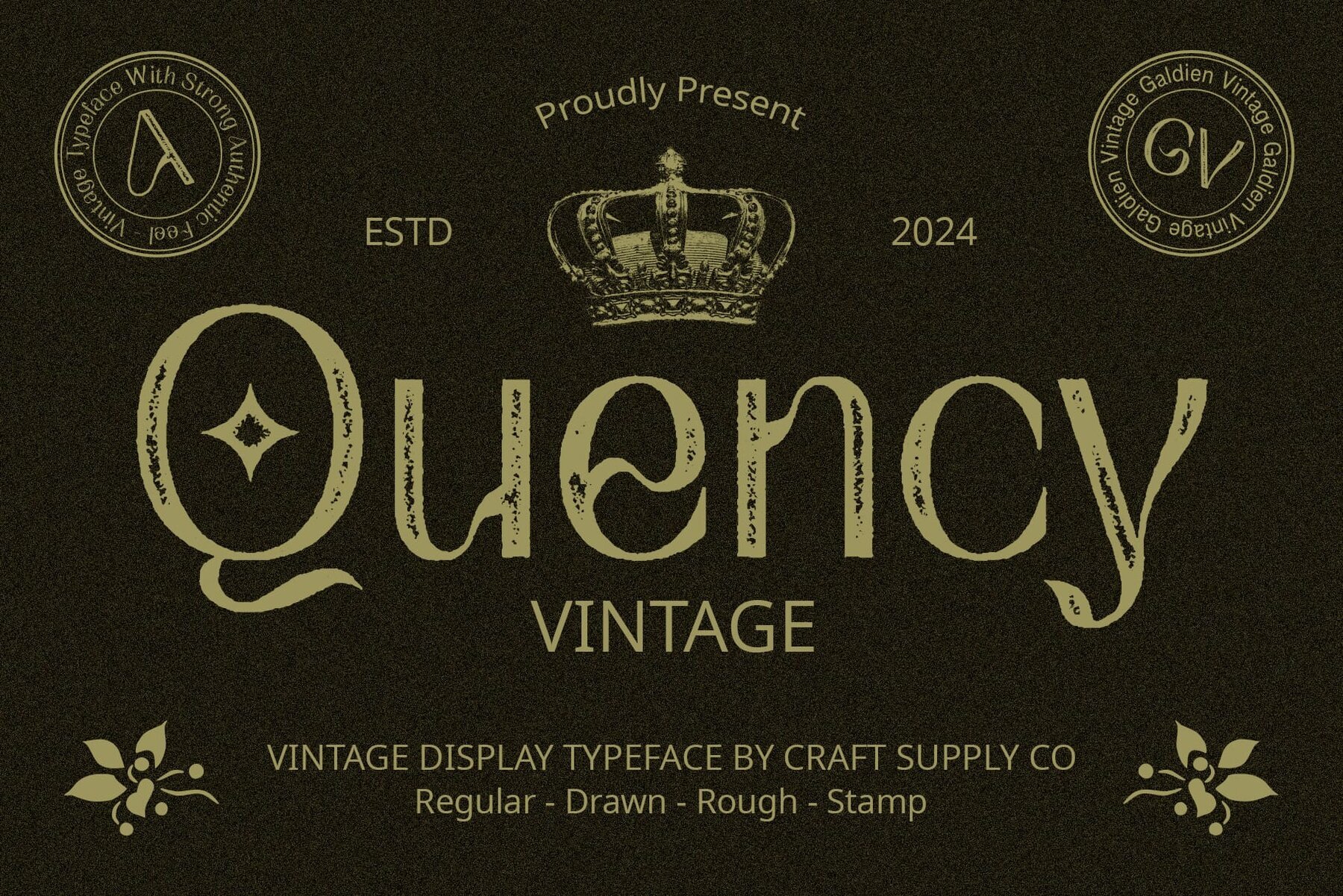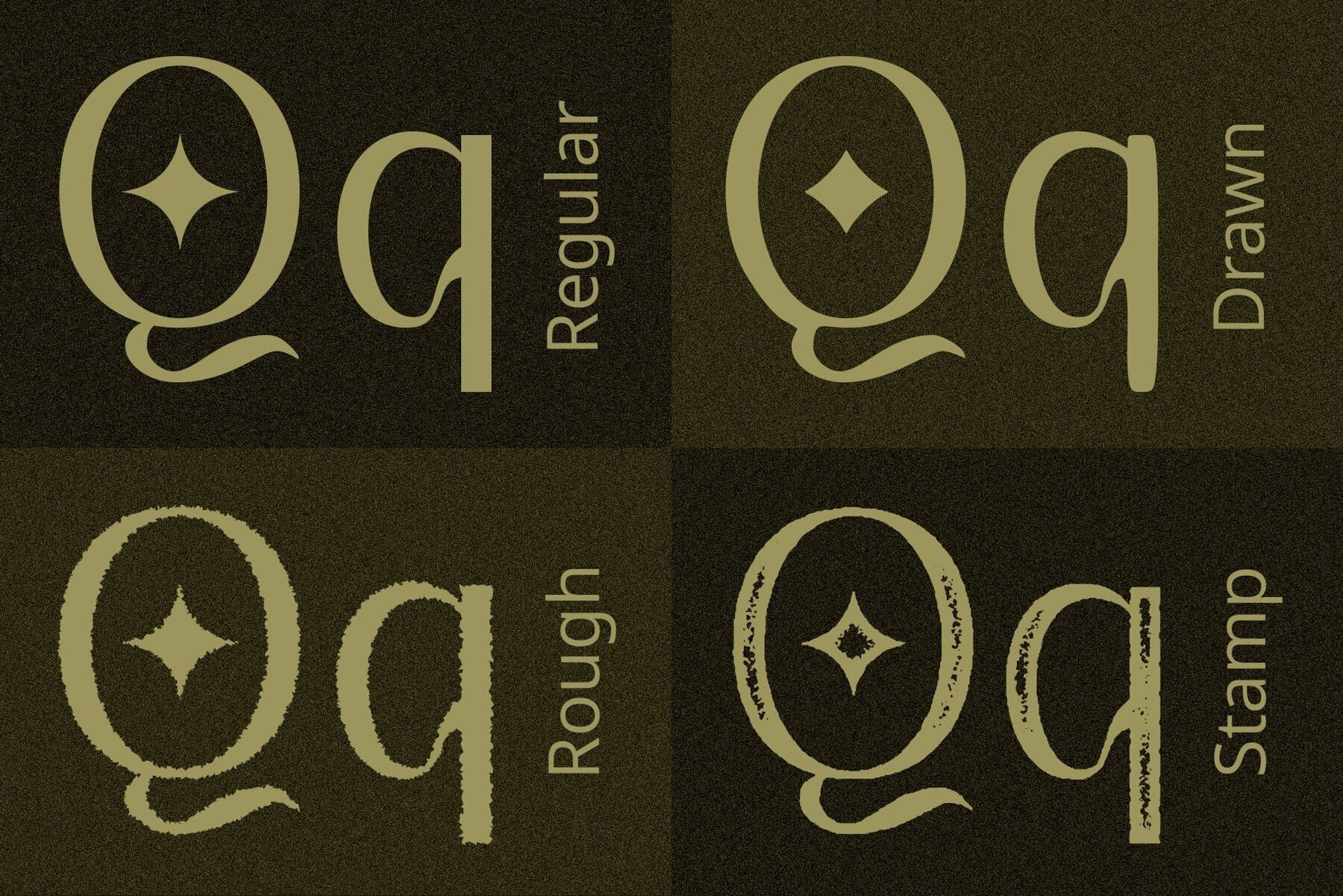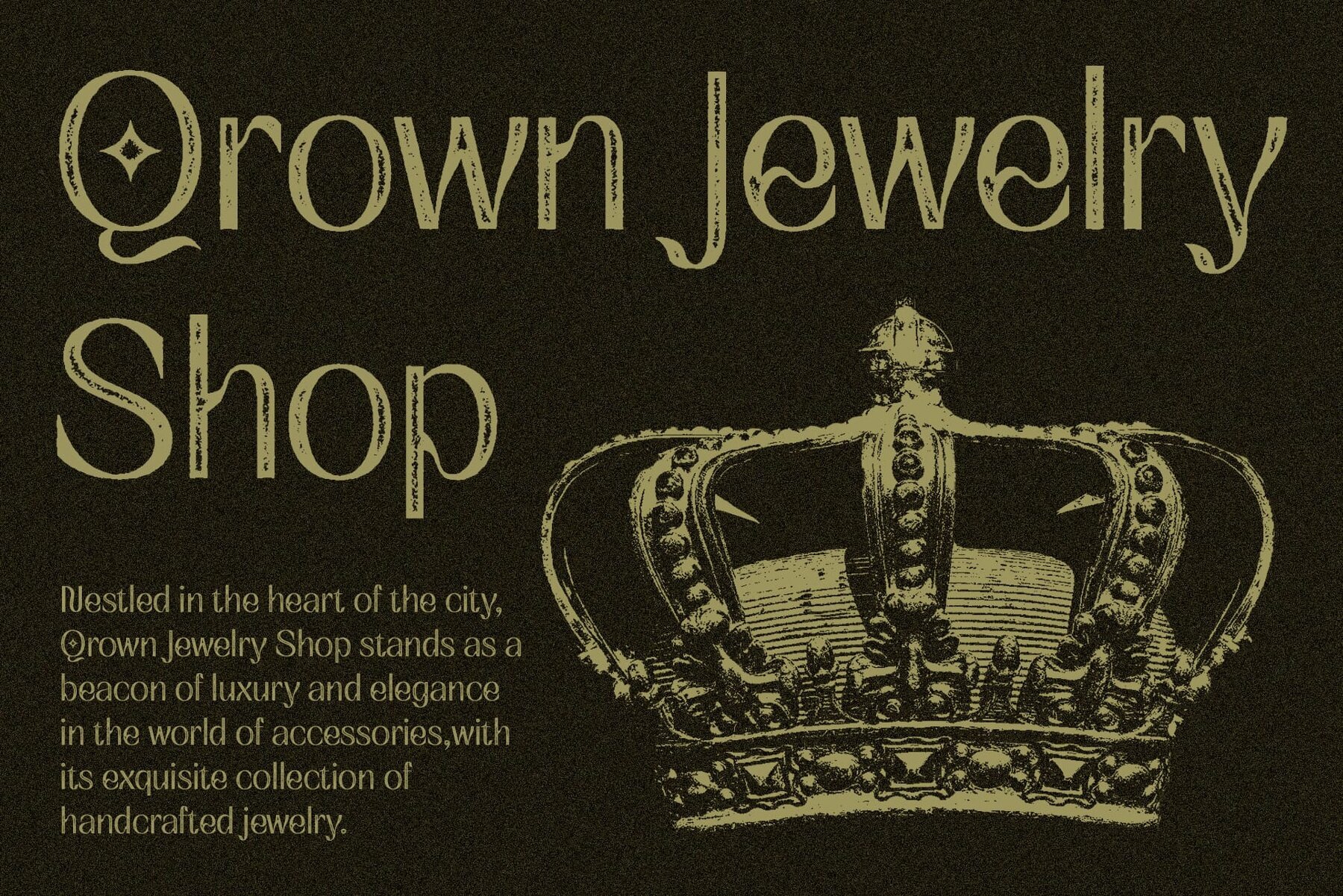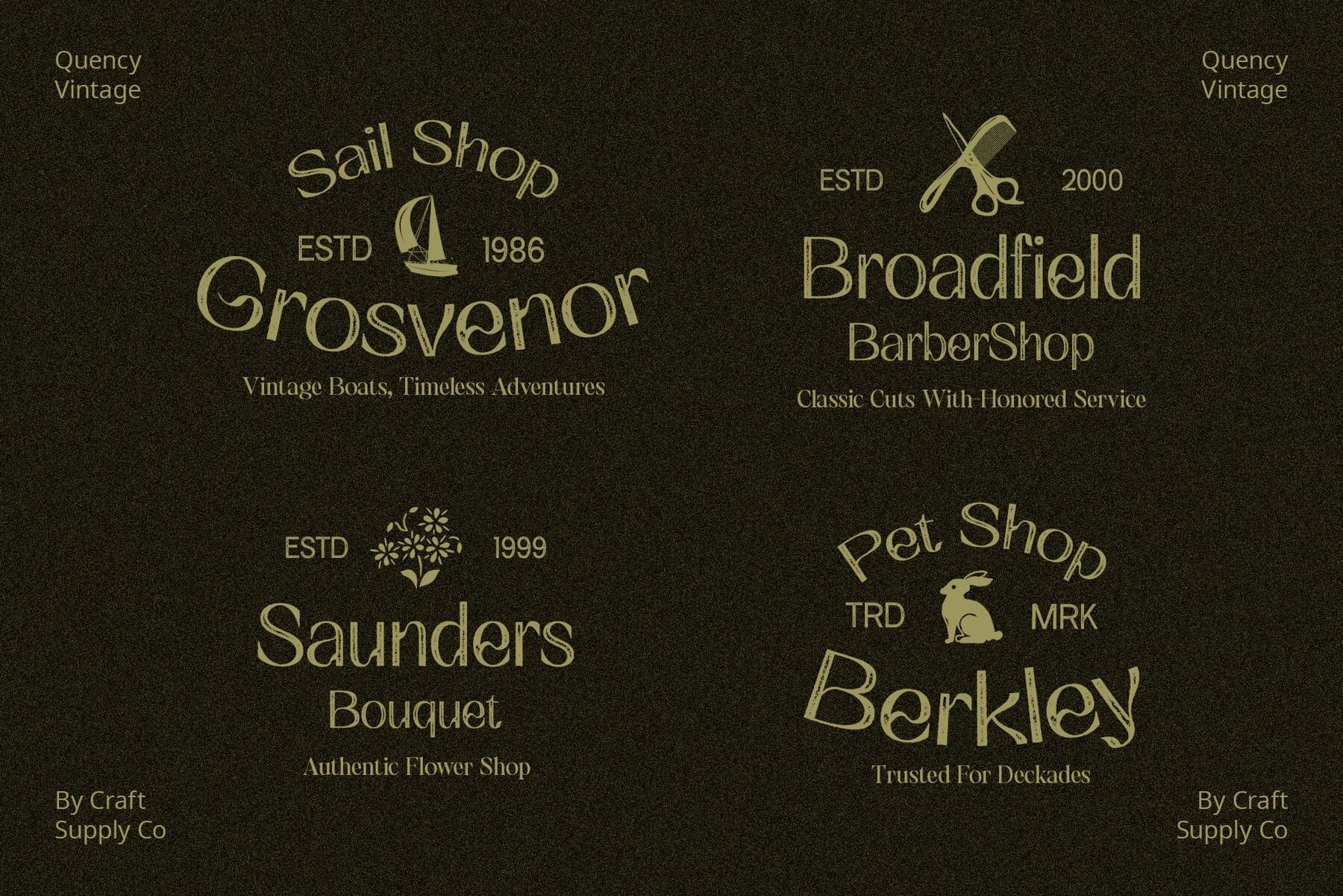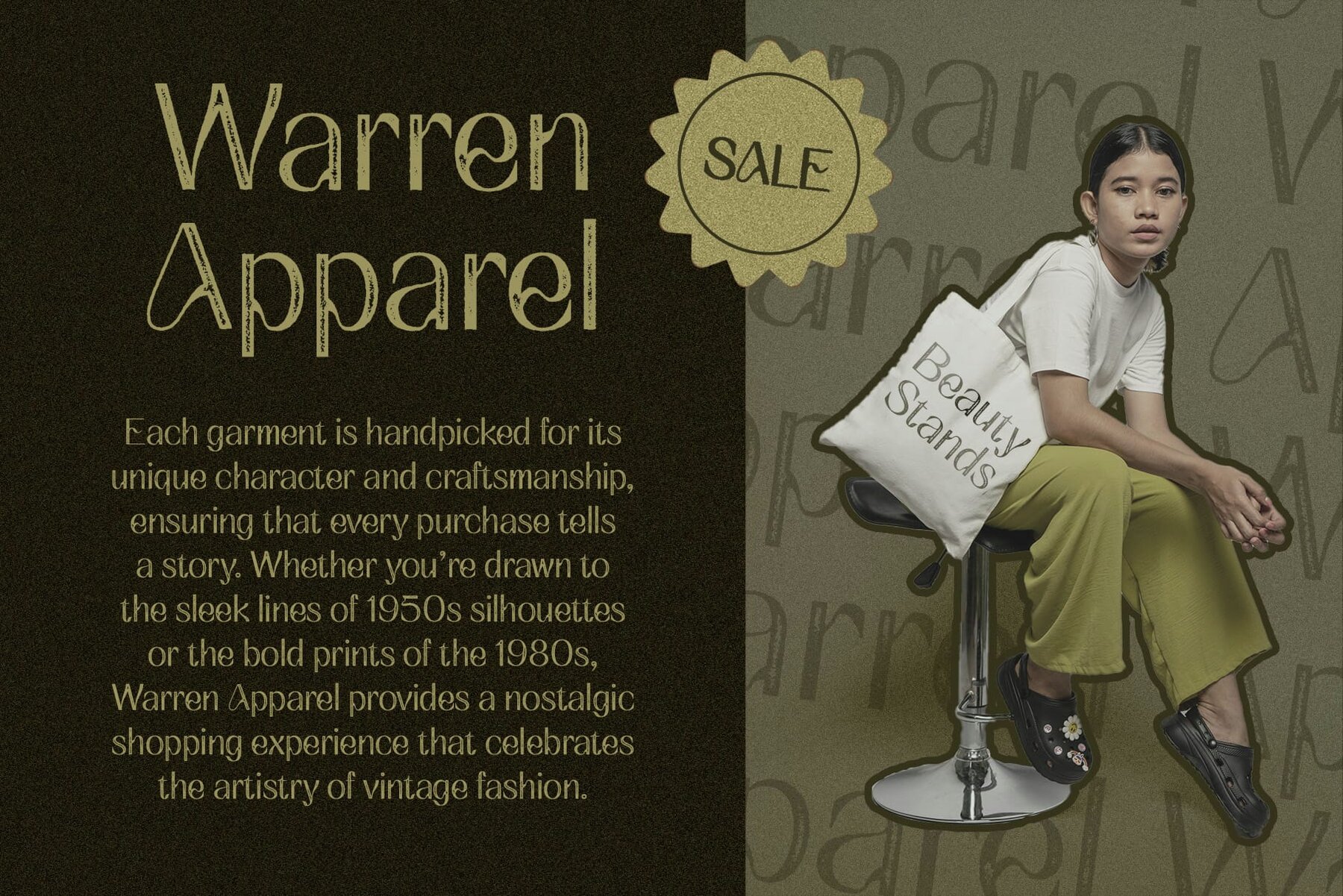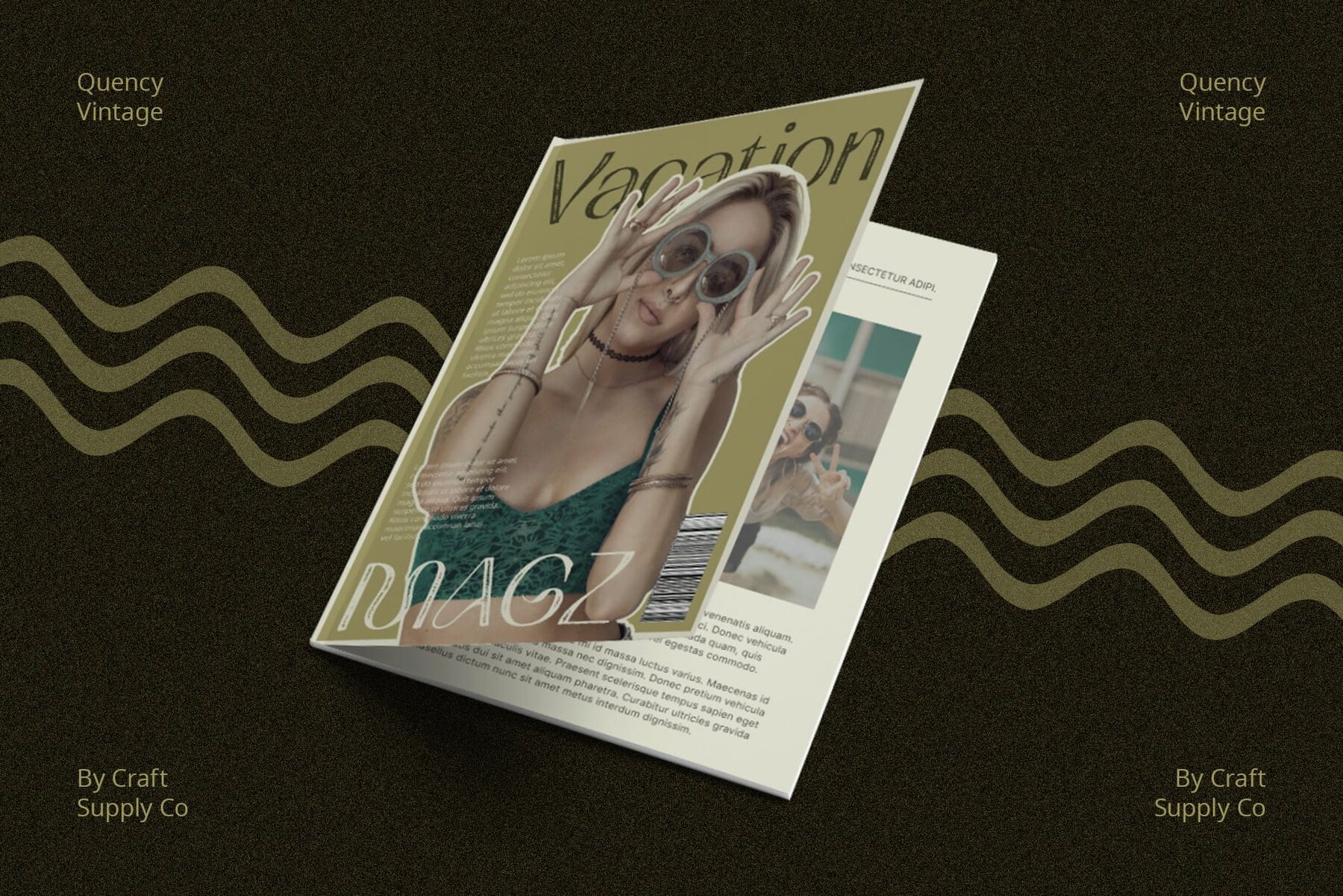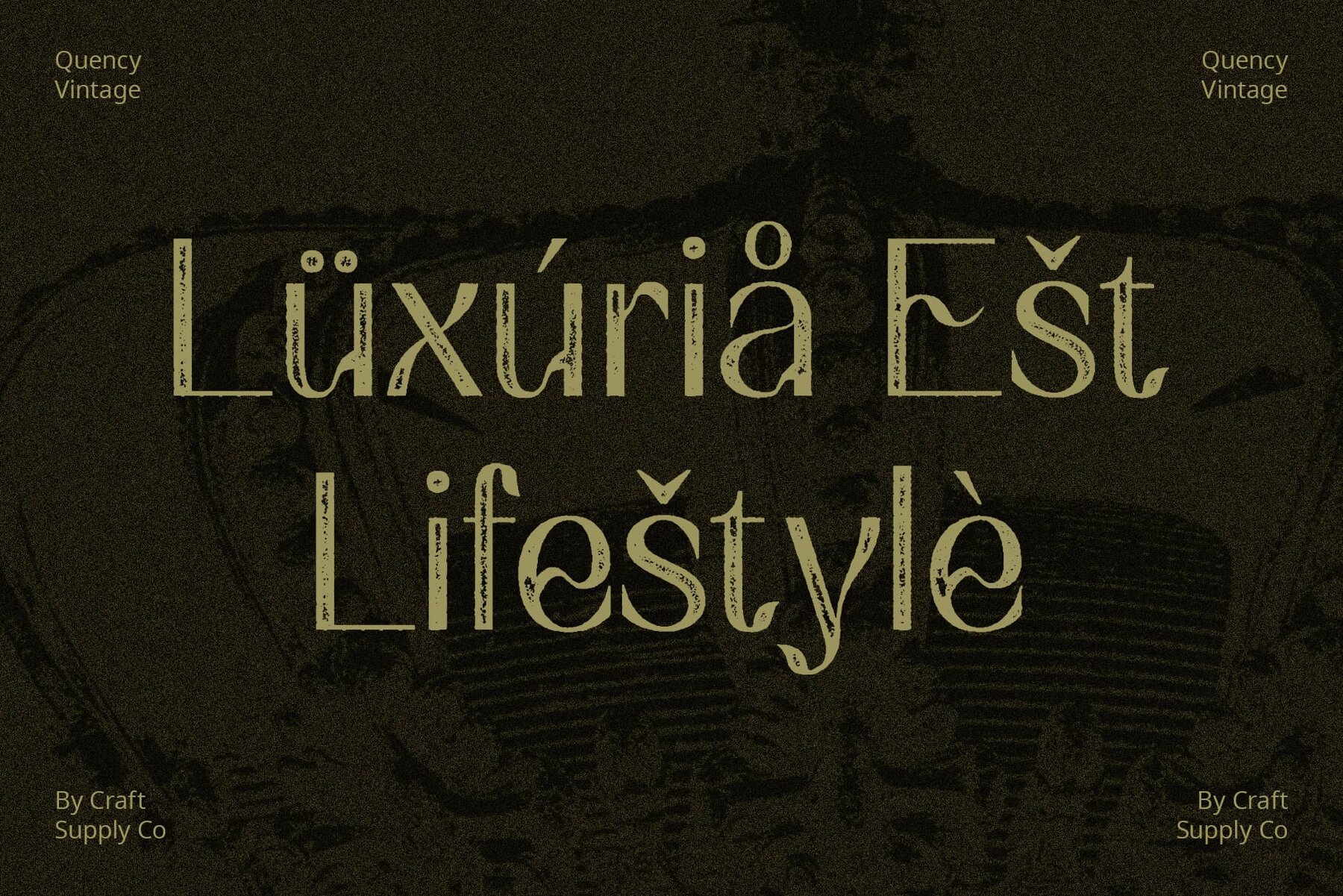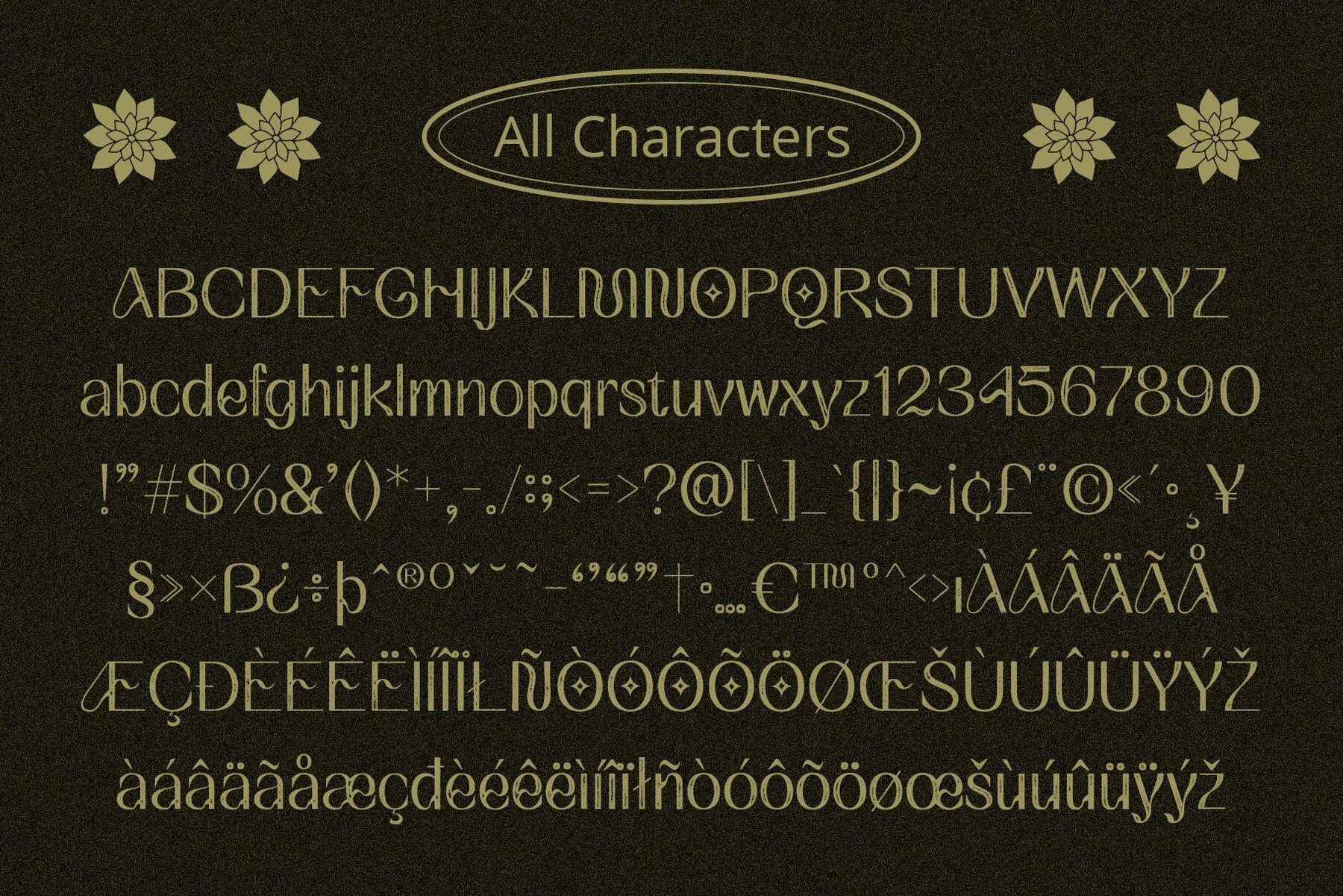
Quency Vintage Font
Flowing Sans Serif Design Quency Vintage offers a unique sans serif display font featuring flowing elements within its stems. This distinct design adds fluidity and dynamism to each character, enhancing the font's visual appeal. Blending classic sans serif aesthetics with a rough stamp grunge effect, this font seamlessly merges vintage charm with modern design sensibilities. The result is a font that exudes nostalgic elegance with a contemporary twist. The stamp rough grunge effect lends Quency Vintage a distinctive vintage look, reminiscent of old posters and signage. This rough edge adds character and authenticity, making it stand out in display applications. Perfect for a wide range of design projects, this font brings a touch of retro flair to branding, packaging, posters, and social media graphics. Its vintage charm and unique flow make it a versatile choice for designers. Quency Vintage encapsulates the essence of timeless retro chic, blending flowing sans serif design with vintage rough stamp effects. Its versatile appeal and distinctive style add a touch of nostalgic elegance to any design project. Step back in time and elevate your creations with its unique retro charm. No specialized software is needed to utilize this typeface. For any inquiries or assistance, please don't hesitate to get in touch. We appreciate your support in making your creative projects shine!Quency Vintage: Embracing Retro Elegance
Combining Vintage and Modern
Vintage Vibes with a Rough Edge
Versatile Retro Appeal
Timeless Retro Chic